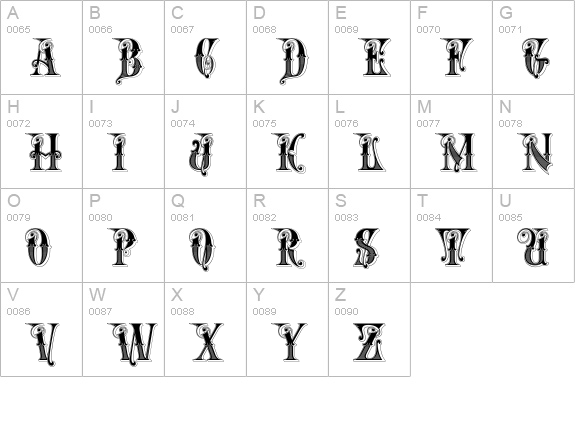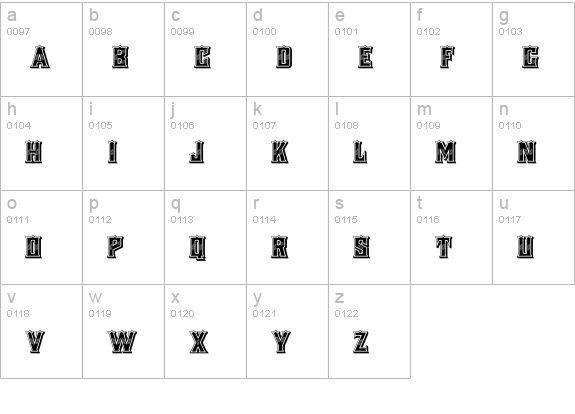
The Rough Riders font is a bold and adventurous typeface that exudes a rugged and vintage charm. With its rough edges and strong presence, this font is perfect for projects that require a bold statement or a touch of nostalgia. Whether you're working on a poster, logo, or branding materials, Rough Riders will add a unique and eye-catching element to your design. The best part? Rough Riders font is completely free to download at FontsMarket.com, making it accessible to all designers and creatives looking to add a touch of ruggedness to their projects. Embrace the wild side of typography with Rough Riders and let your creativity run wild.